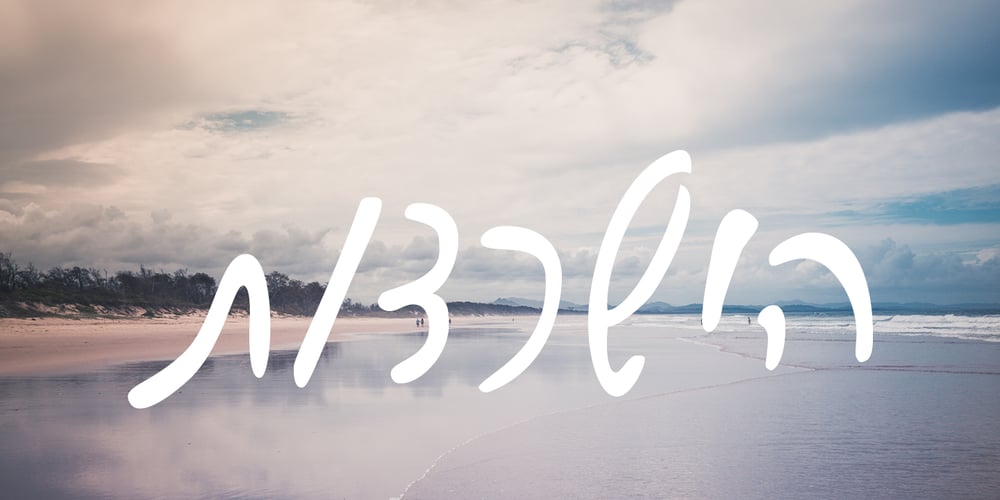
Ben Gurion MF
Ben Gurion MF font
Ben Gurion MF Font Family was designed by David Ben-Gurion and published by Masterfont. Ben Gurion MF contains 1 styles and family package options. The first prime minister of the state of Israel was uique in his looks, his voice and his hand writing.